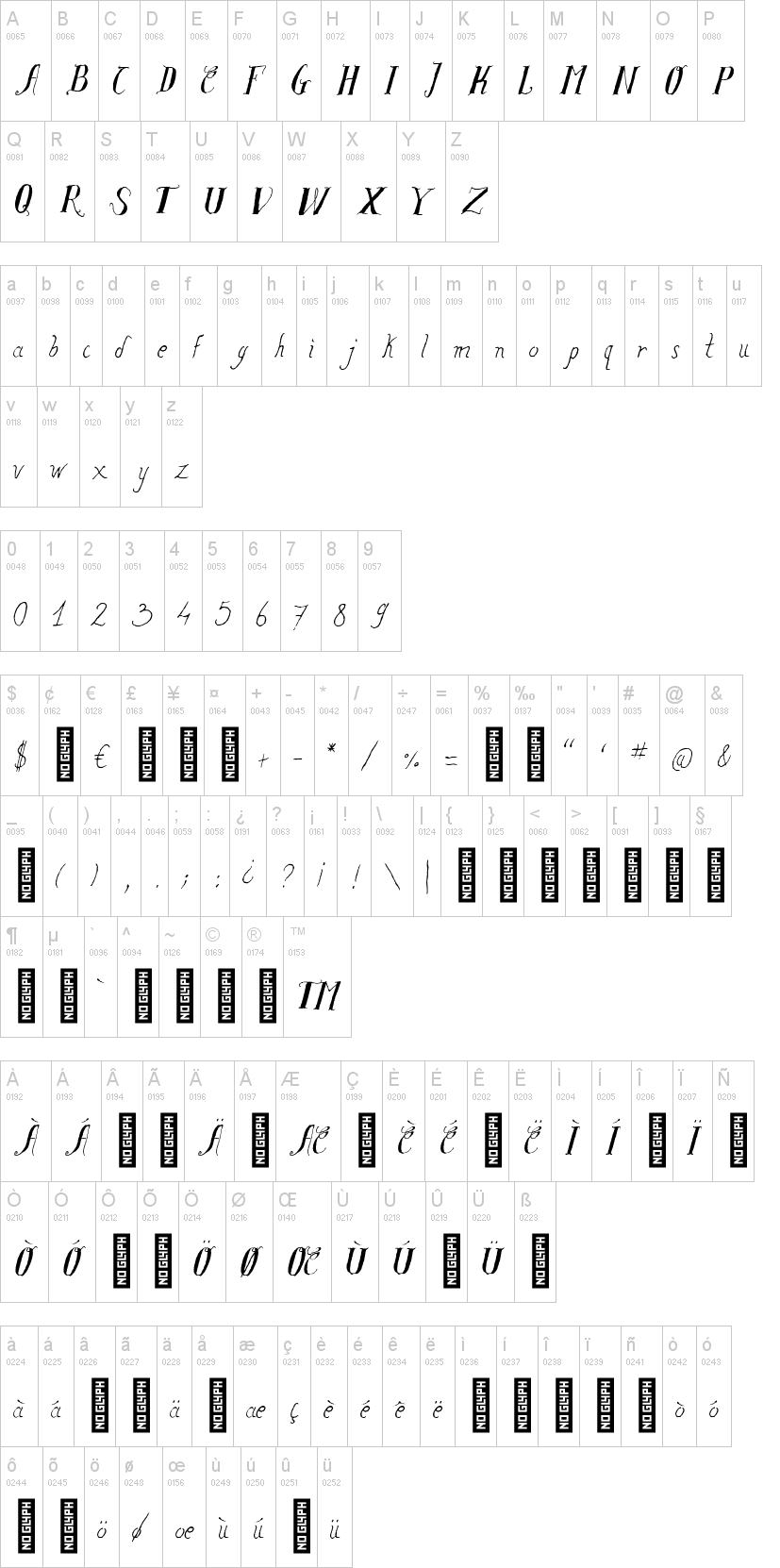
Note of the authorSalvat Study is an handmade font I created for an illustration project (MECHANICAL/BIOLOGICAL) that you can find on my behance profile :